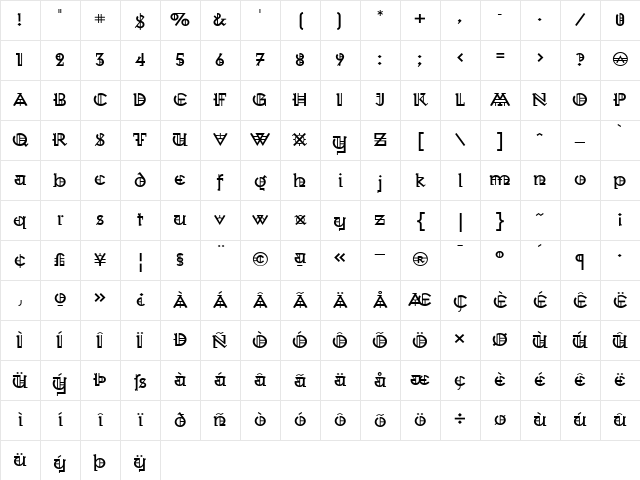
WexfordOakley Regular
WexfordOakley Family
Complete WexfordOakley Regular glyph index. Displaying only characters natively supported by WexfordOakley Regular font.
Design Context for WexfordOakley
WexfordOakley is a composed and adaptable typeface that performs quietly and consistently across a wide range of design contexts.